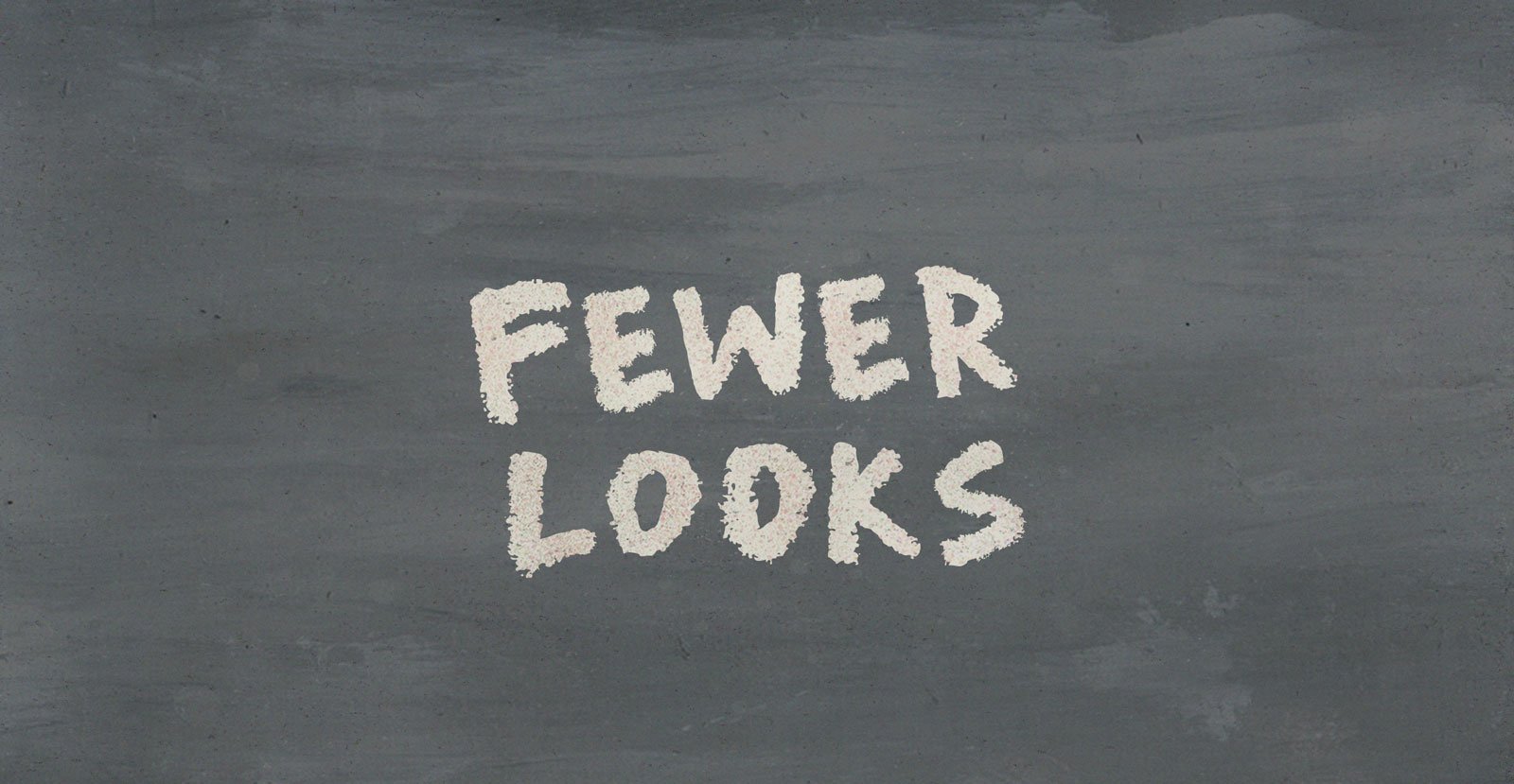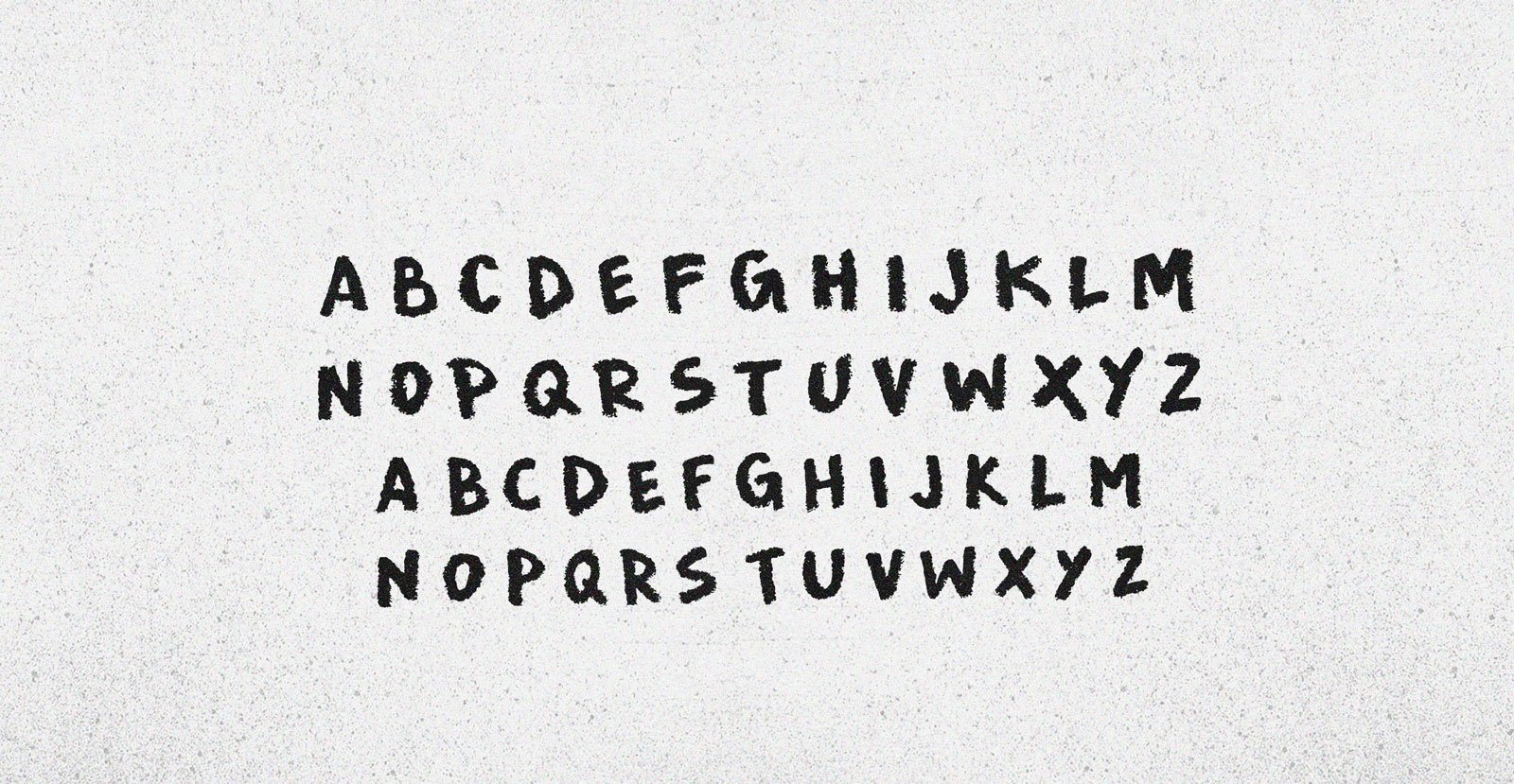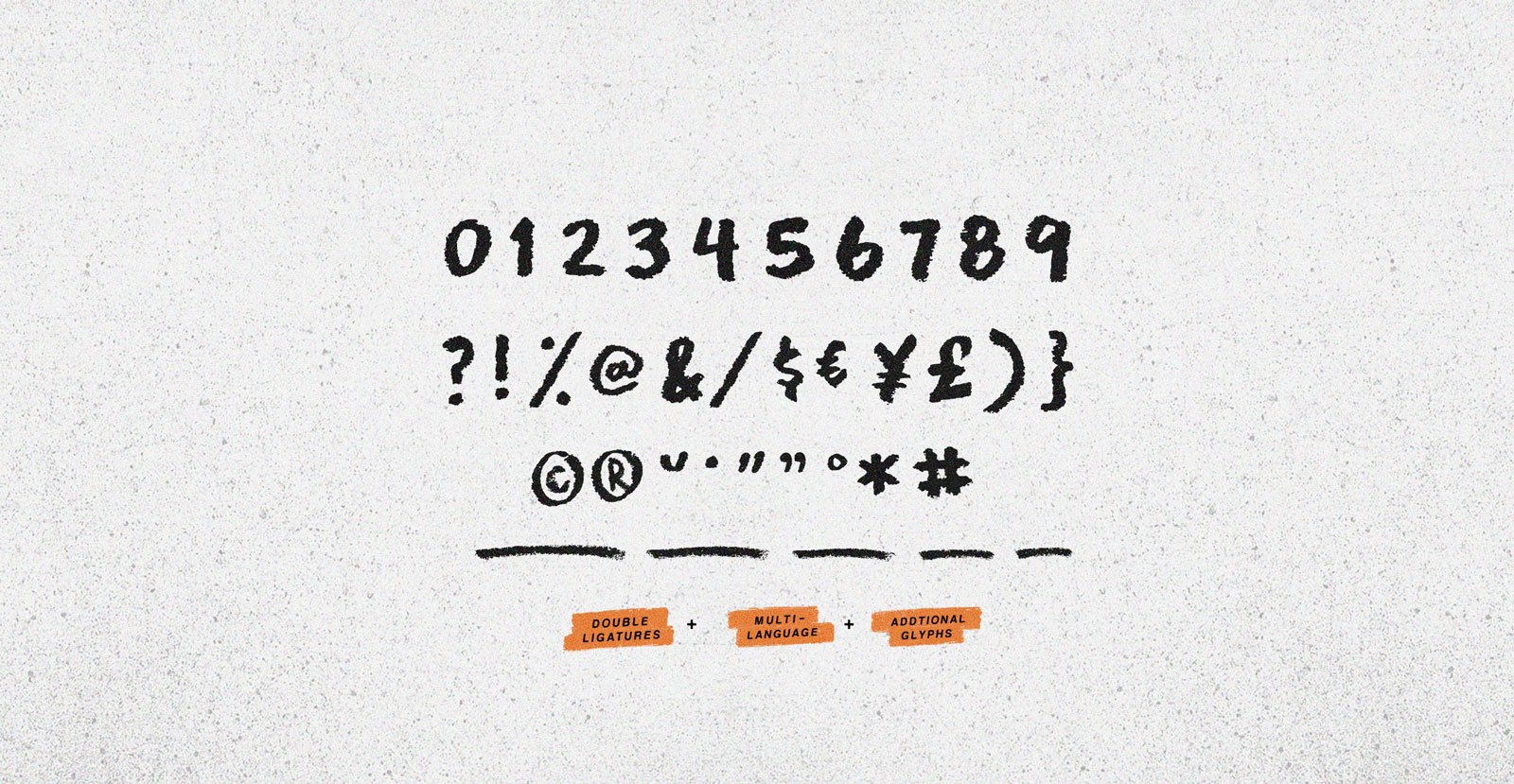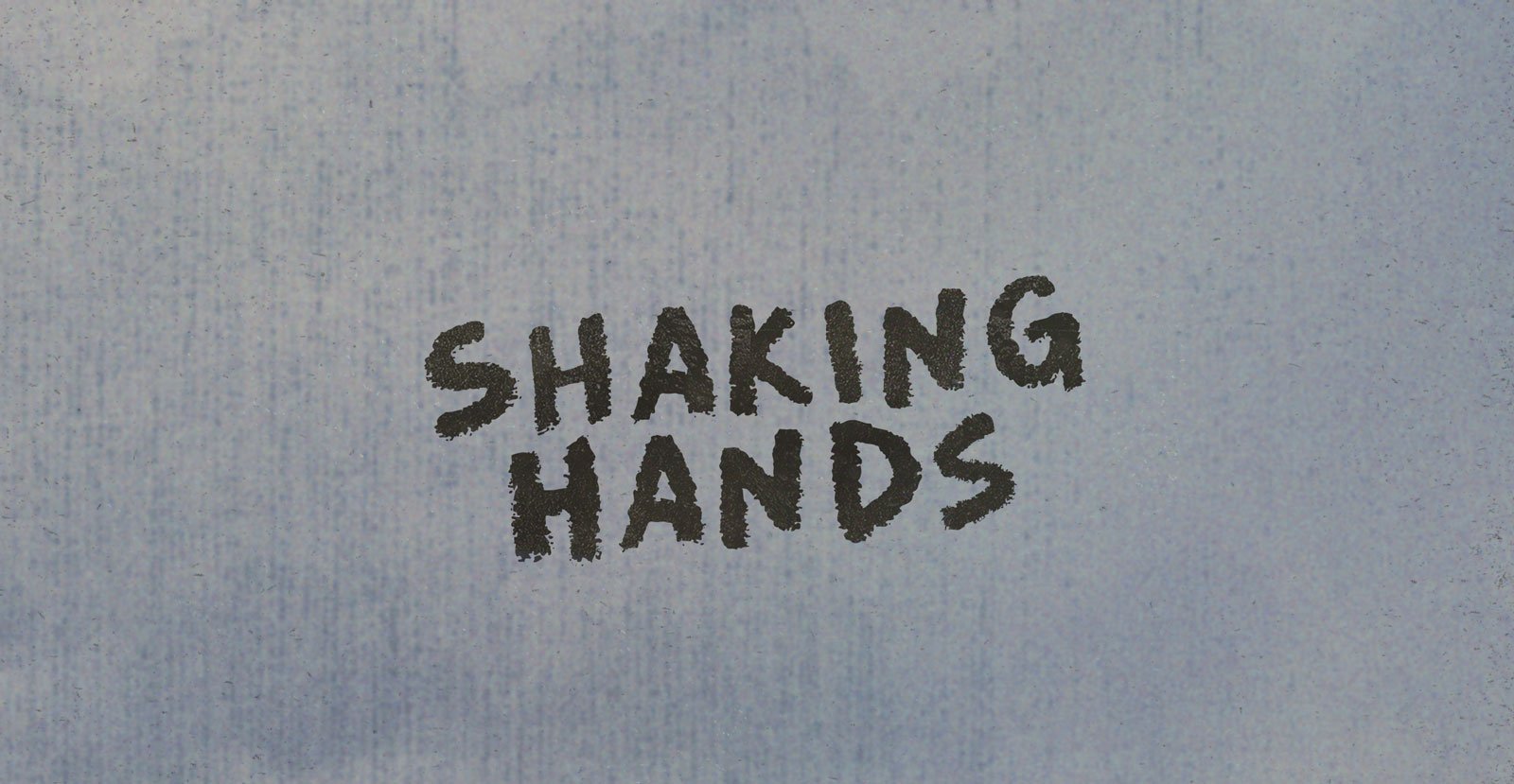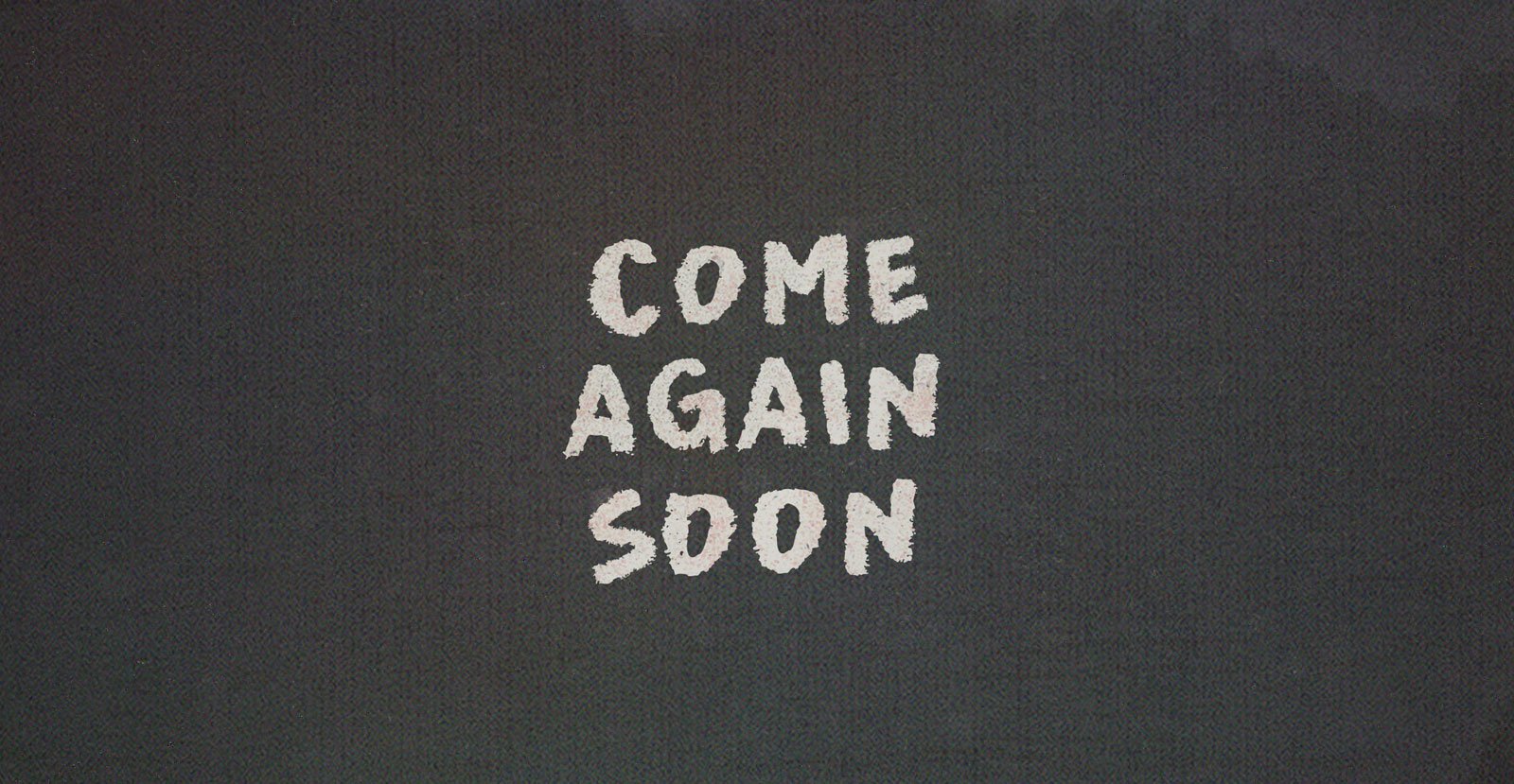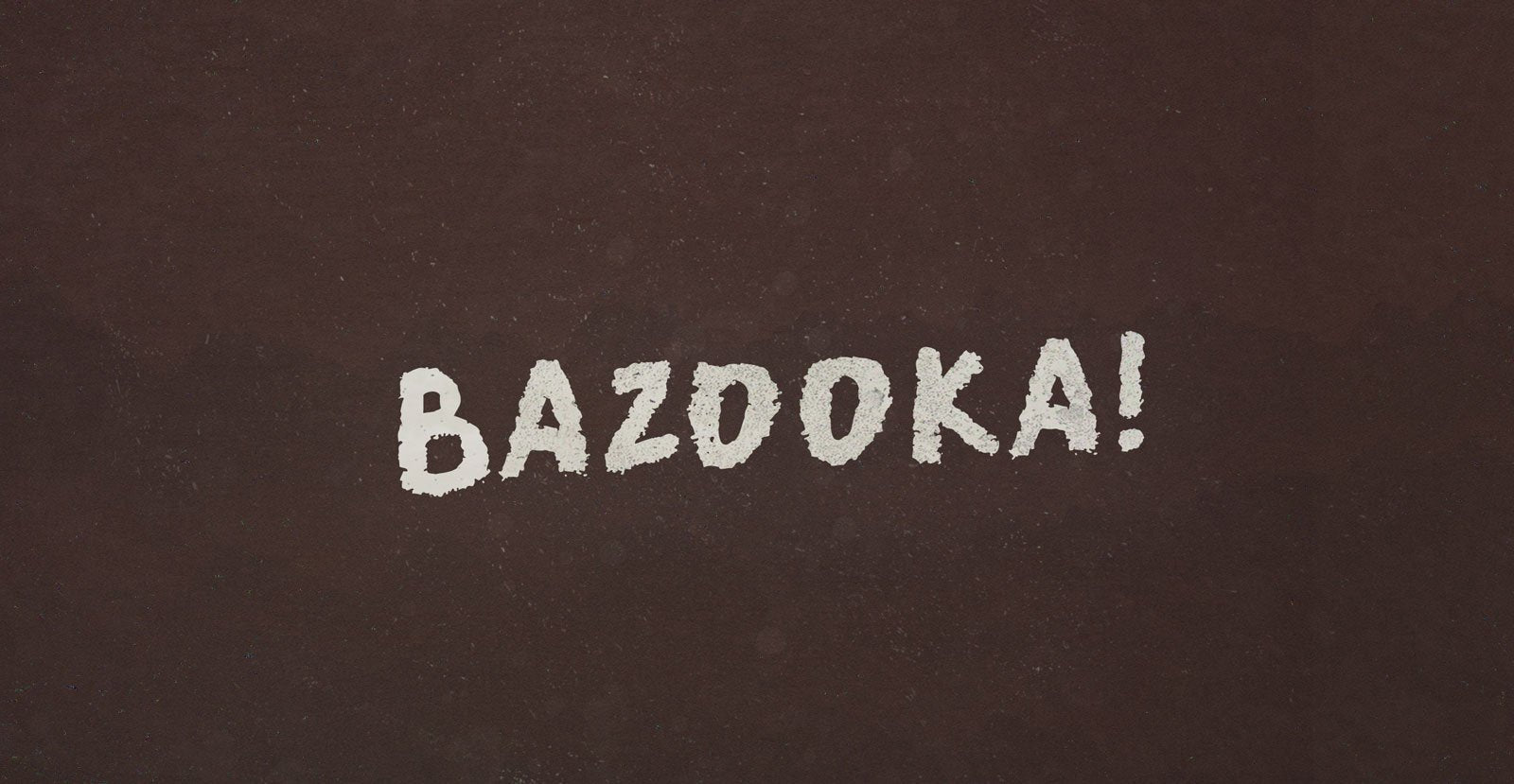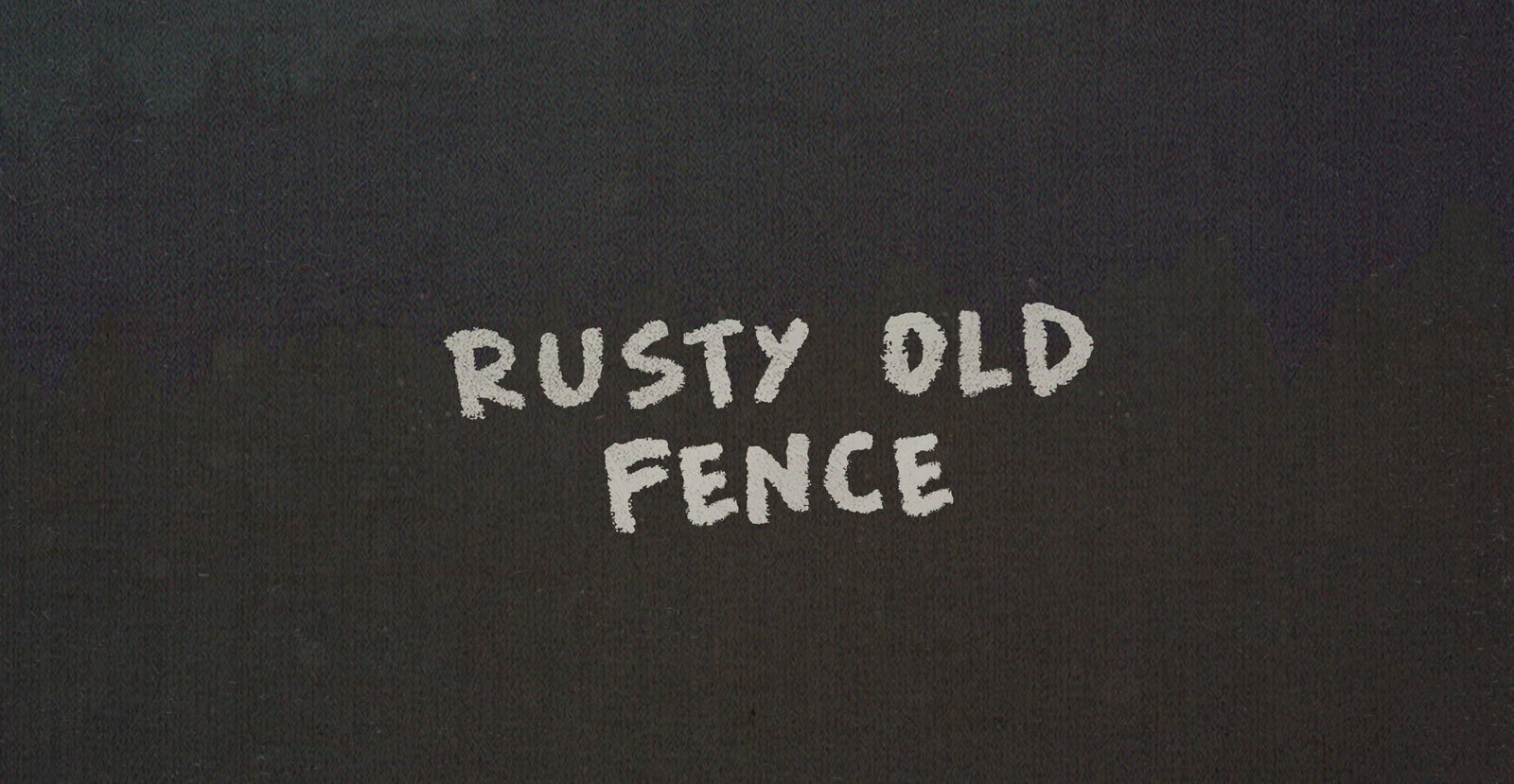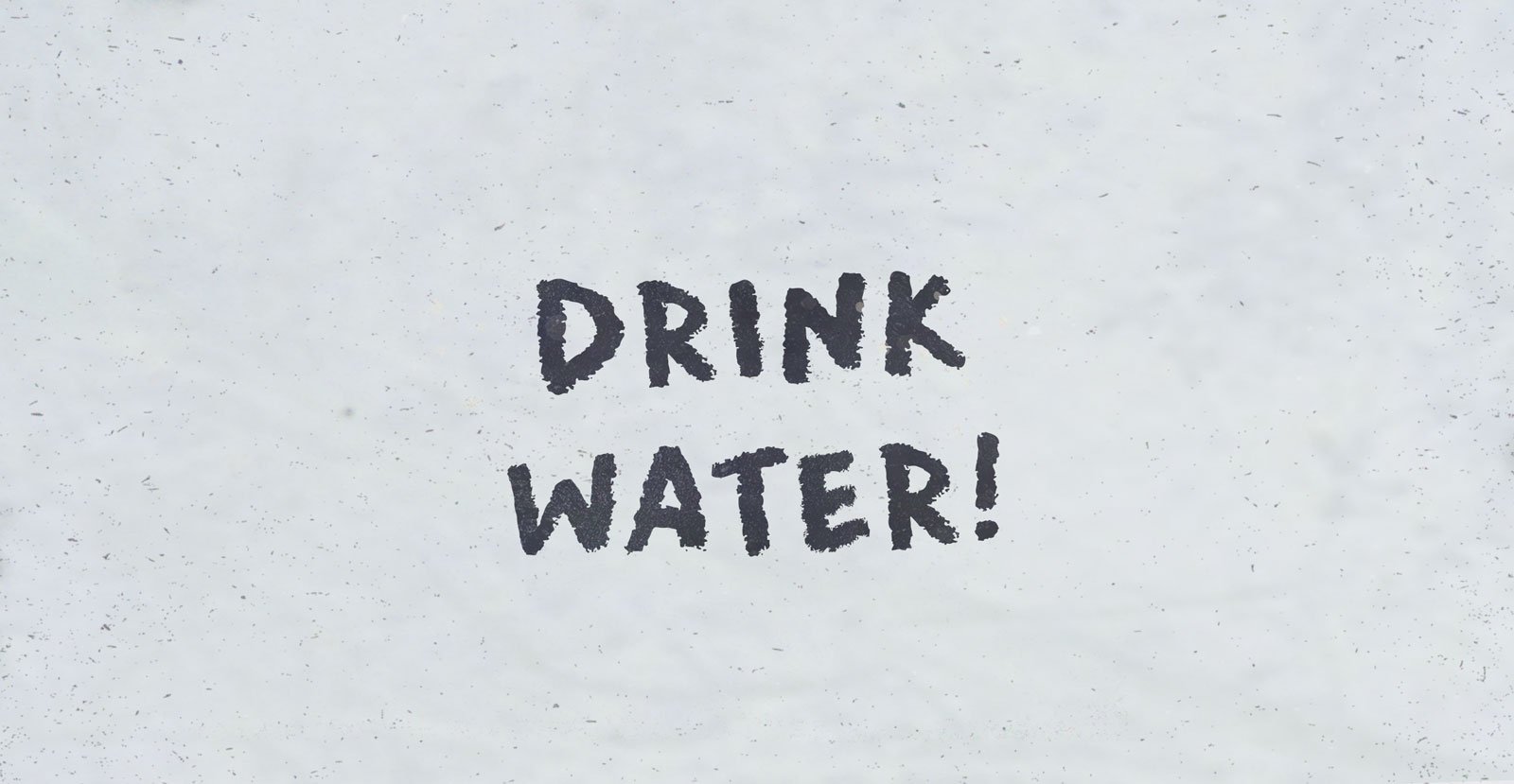
Fewer Looks
With a vision of keeping eyes lashed shut, we drop the eyeball and blow lids open. Given a written description of how Fewer Looks, you can't see when you can't read; and when your mind's eye rolls by, you might miss it, like the good times.
• Underlines